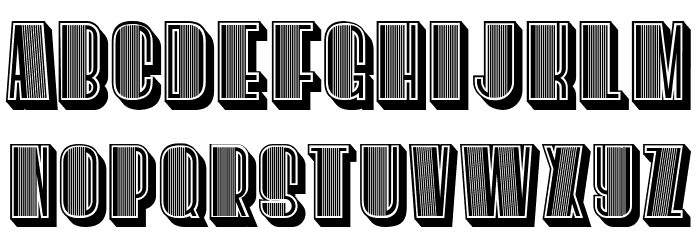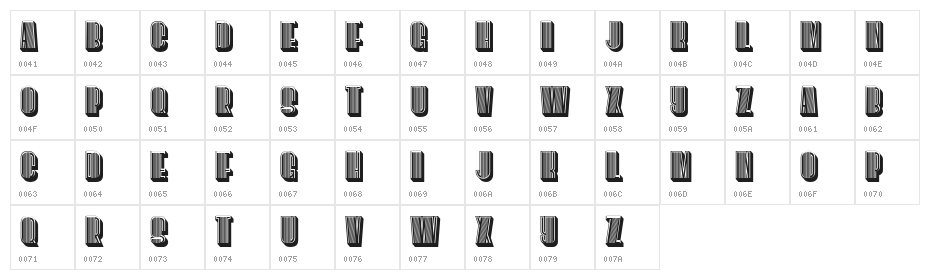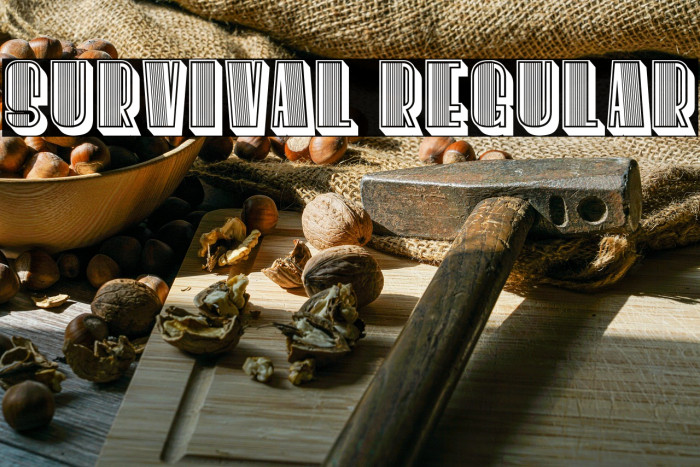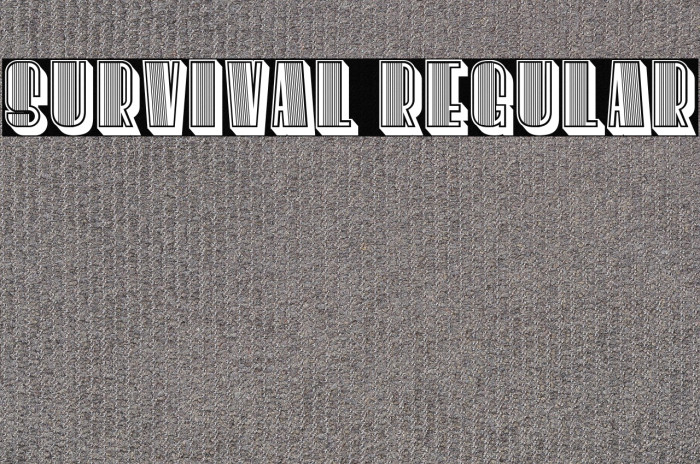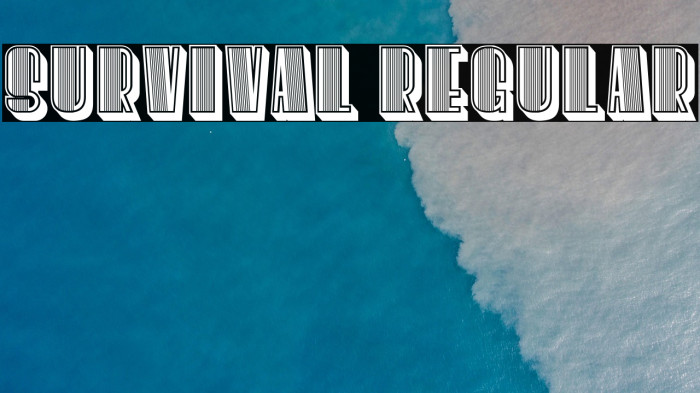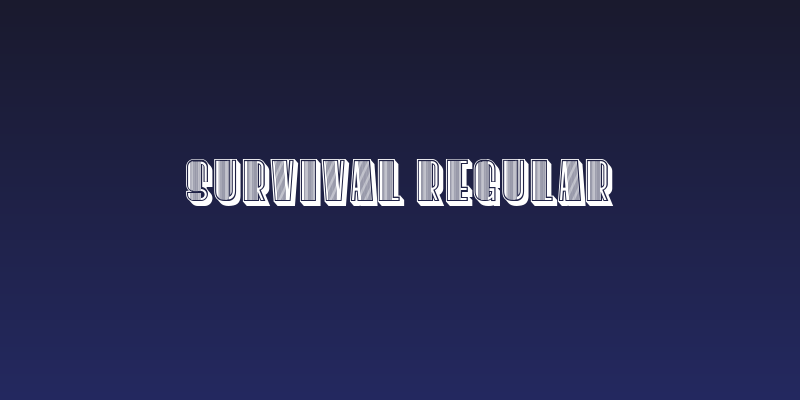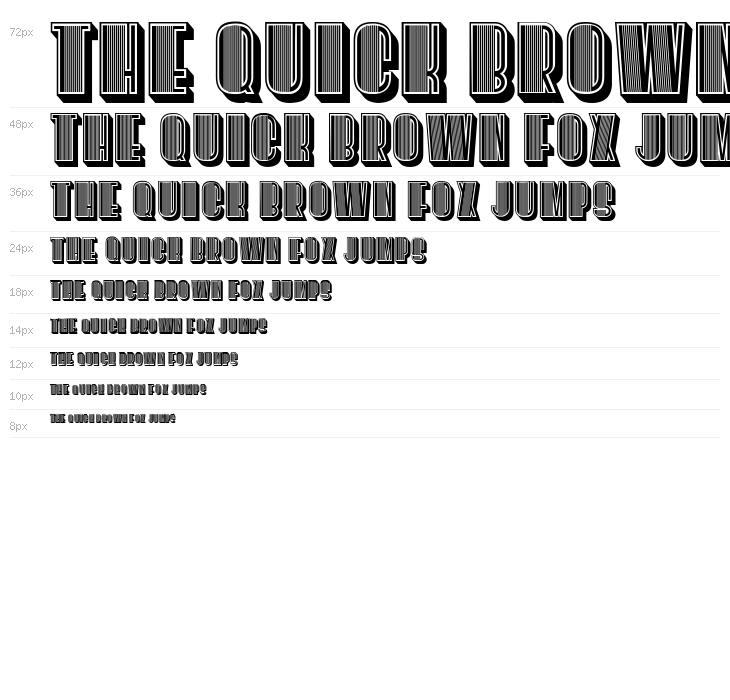
Survival Regular Font
Survival Regular Description
This font features a bold, decorative style with a strong 3D effect created by its shadowed outline. The letters are characterized by vertical stripes within each character, adding a sense of depth and texture. The design is highly stylized, making it stand out with its unique combination of solid and striped elements. The font's structure is robust and impactful, suitable for making a statement in any design. Its uppercase letters are uniform in height, contributing to a cohesive and balanced appearance.